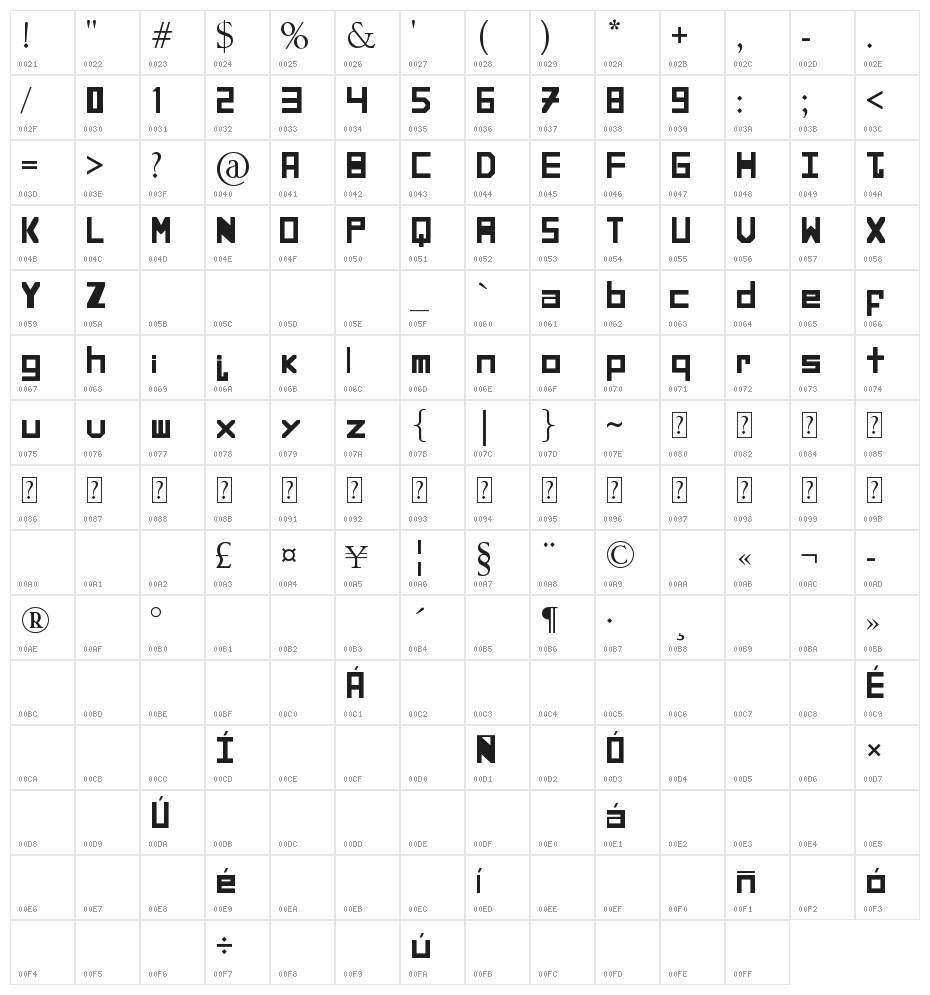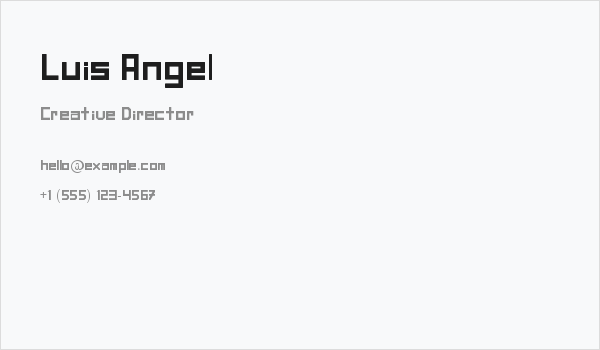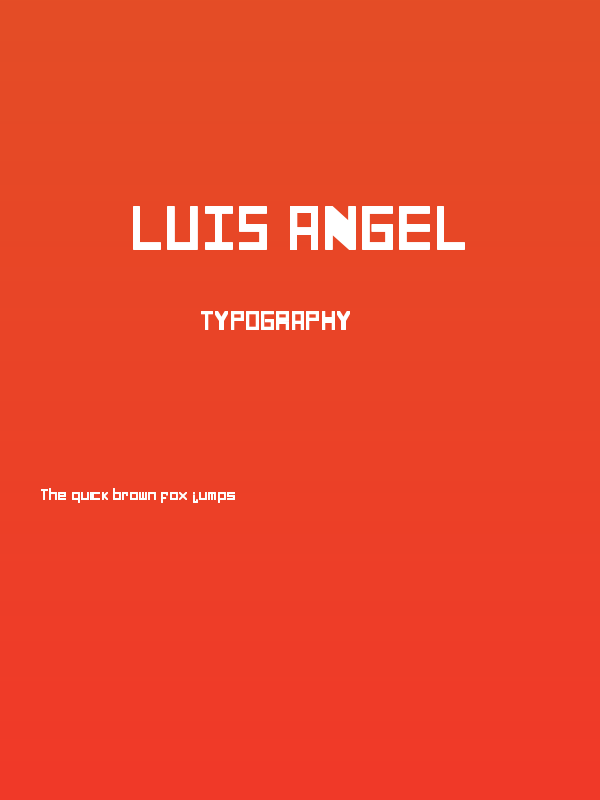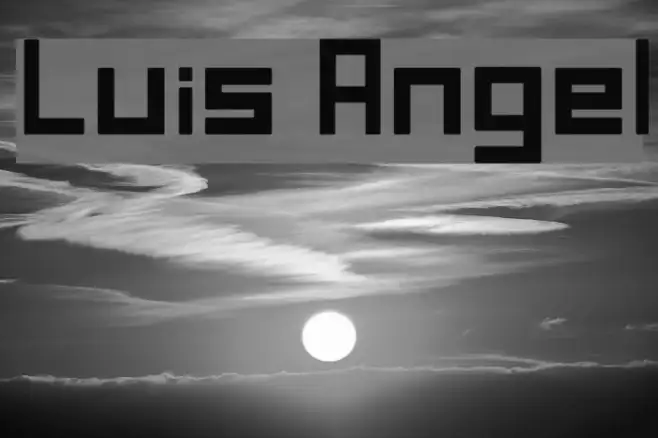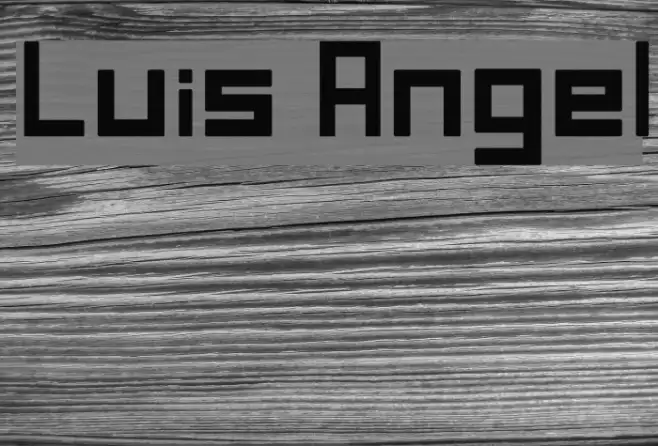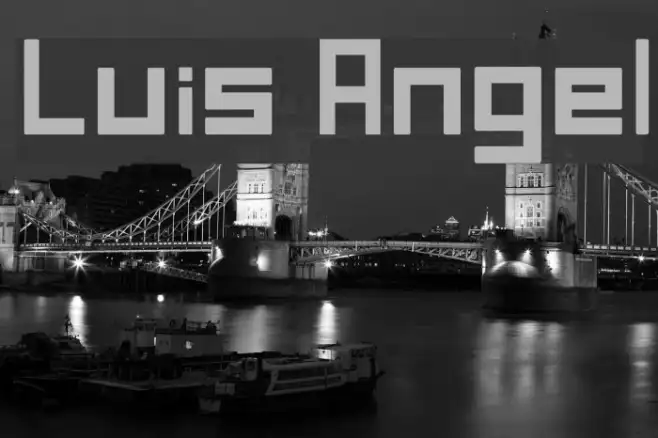
Luis Angel Font
Luis Angel Description
This font exhibits a bold, geometric style with a modern and futuristic aesthetic. The characters are constructed with sharp angles and straight lines, giving them a blocky appearance. The uppercase letters are uniform in height, while the lowercase letters maintain a consistent baseline with slight variations in height for certain characters like 'g' and 'j'. The numerals are equally bold and align well with the overall style, providing a cohesive look. Special characters are designed to match the angular and robust nature of the alphabet, ensuring visual harmony across all glyphs. The font's design is striking and commands attention, making it suitable for impactful headlines and branding.
LUIS-ANGEL UPPERCASE
LUIS-ANGEL LOWERCASE
LUIS-ANGEL OTHER CHARS
| Proposed Projects | Ideal for technology branding, video game titles, and modern advertising campaigns. |